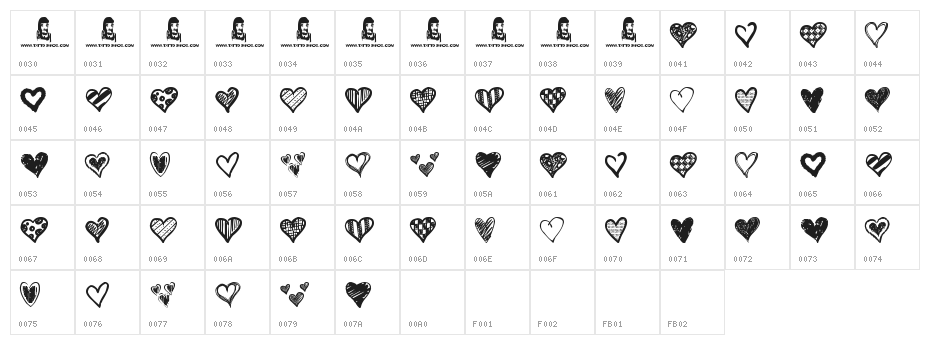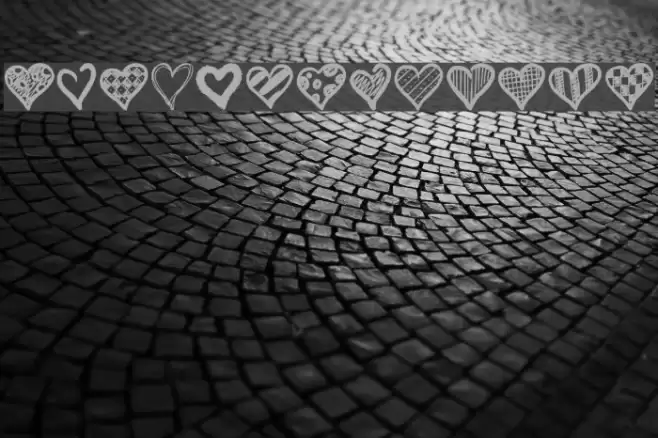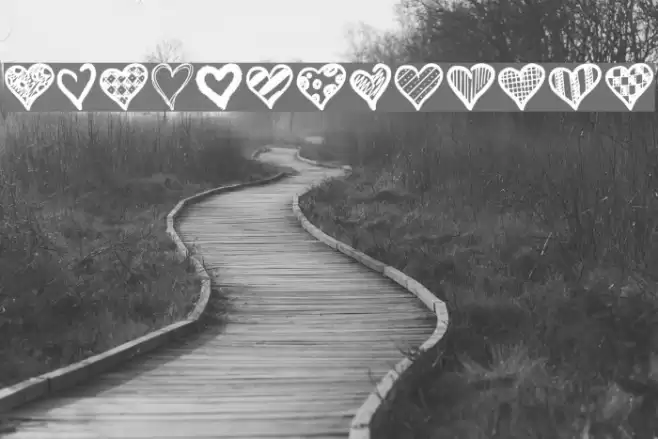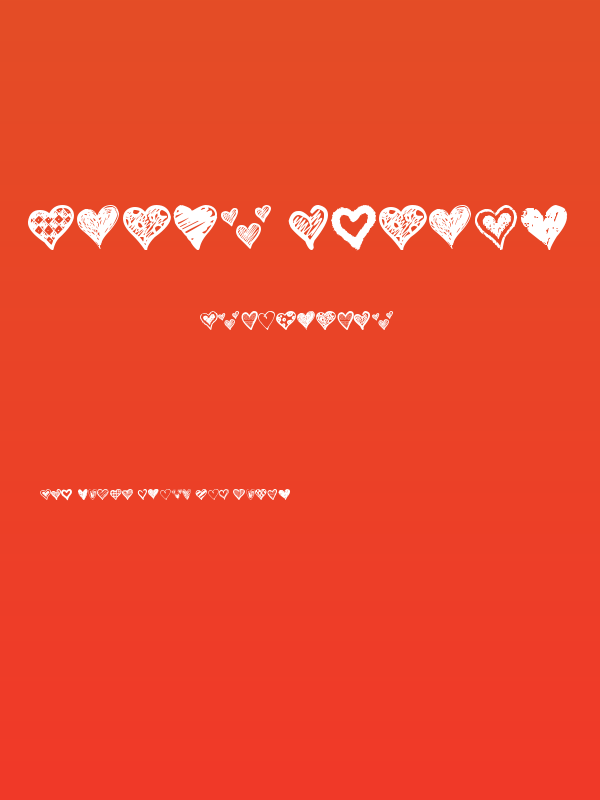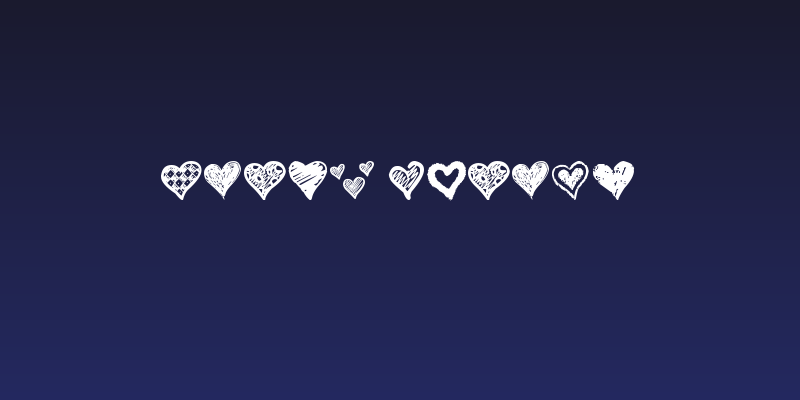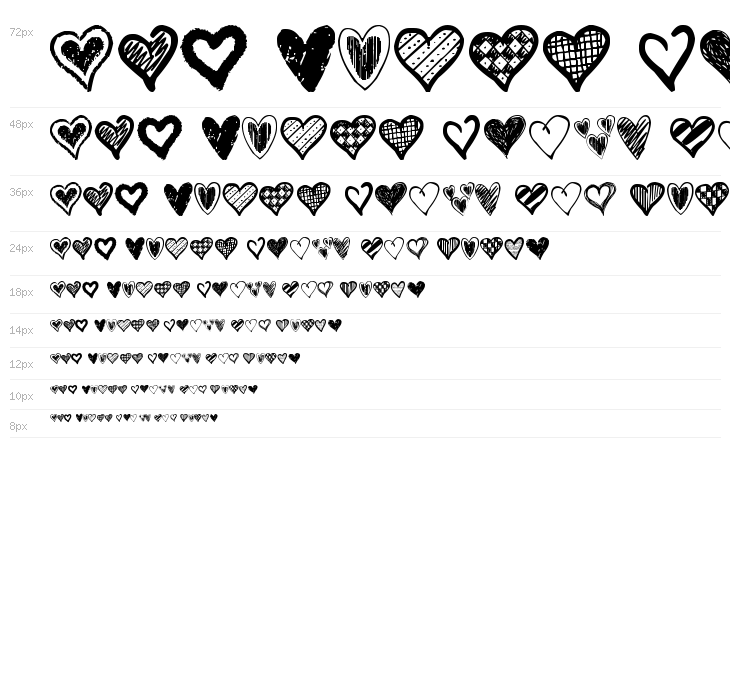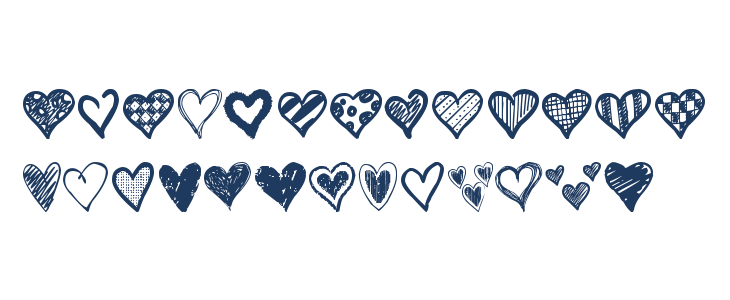
Crazy Hearts Font
Crazy Hearts Description
A playful, hand-drawn decorative font featuring a variety of heart shapes with different patterns and textures, giving a whimsical and artistic feel. The characters are irregular and expressive, emphasizing a casual, sketch-like aesthetic.
| Overall Style | Decorative, Playful, Hand-drawn |
| Use Case | Decorative headings, crafts, invitations, themed graphics |
| Proposed Projects | Valentine's Day cards, children's crafts, party invitations, playful branding, scrapbooking, decorative posters. |